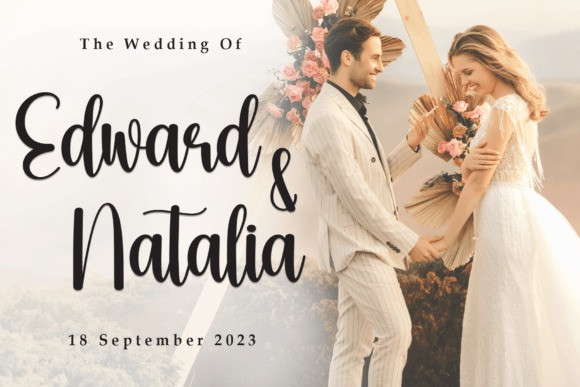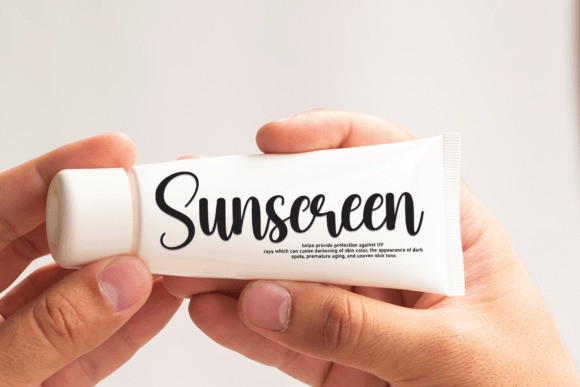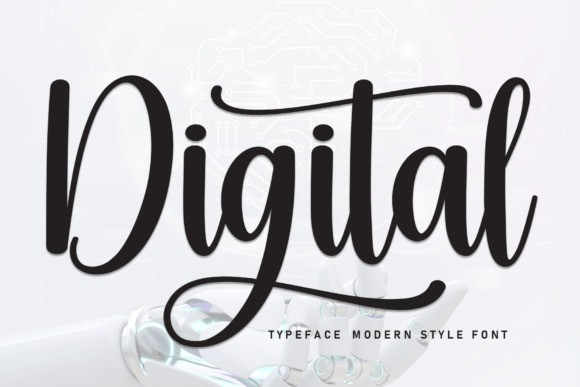
Digital Script Font
Digital Script Font is an incredibly cool and unique display font. It has a modern yet whimsical style and it will undoubtedly immerse your designs into a magical world.